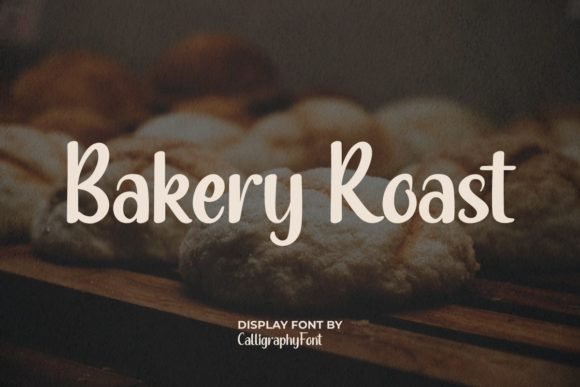
The Perfect Recipe for Designers
Imagine walking into a charming café on a sunny morning, surrounded by the sweet aroma of freshly baked bread and the warmth of vintage decor. That’s exactly the kind of atmosphere you can evoke with the Bakery Roast Font – a beautiful, sans serif display font family that exudes a vintage charm. Whether you’re a designer, artist, or entrepreneur, this font is the perfect ingredient to add a touch of nostalgia and sophistication to your branding, logos, and marketing materials.
The Bakery Roast Font is designed to make a statement, with its unique letterforms and vintage flair. It’s the perfect choice for creatives who want to stand out from the crowd and leave a lasting impression. Whether you’re working on a music project, designing a menu for a trendy restaurant, or creating a fashion brand, this font will help you achieve your goals.
Bakery Roast Font Key Features
- Font Family: Bakery Roast Font is a unique, hand-drawn font designed for bakery and food-related businesses.
- Character Count: The font includes a wide range of characters, including uppercase and lowercase letters, numbers, and special characters.
- Size and Resolution: Designed to be used at medium to large sizes, ideal for headings, titles, and signage. Supports resolutions up to 300 DPI for high-quality printing.
- Unique Characteristics: The font features a distressed, vintage look with subtle texture and imperfections, giving it a warm and inviting feel.
Bakery Roast Font Review
I recently had the chance to work with the Bakery Roast Font, and I must say it’s a decent addition to any baker-themed project. ✨ The font’s playful, handwritten feel is reminiscent of freshly baked treats, which can be quite charming for the right audience. It’s also worth noting that the font is available in multiple weights, allowing for some flexibility in design.
Here are some of the key things that work well with Bakery Roast Font:
- Unique, handwritten feel that can add a touch of whimsy to your design
- Multiple weights available for added flexibility
- Can be used for a variety of applications, from food labels to packaging
- May not be suitable for formal or professional applications due to its casual, handwritten feel
- Can be a bit difficult to read in smaller font sizes or at a distance
- Lack of international character support, which may limit its use in multilingual projects
Overall, I’d say Bakery Roast Font is a solid choice for projects that require a playful, handwritten feel. Just be aware of its limitations and use it judiciously to get the most out of it.
The Bakery Roast Font is ideal for:
- Restaurant and cafe menus
- Food packaging and labeling
- Recipe and cooking content
To get the most out of the Bakery Roast Font, use it in conjunction with:
- Warm and earthy color schemes
- High-quality food
Alternatives to Bakery Roast Font
Lato is a modern sans-serif font that is perfect for clean and minimalistic designs. It is highly legible and versatile, making it suitable for a wide range of applications, from logos to body text. Compared to Bakery Roast Font, Lato has a more contemporary feel and is more suitable for modern designs.
Playfair Display is a luxurious serif font that is ideal for creating elegant and sophisticated designs. It features intricate details and ornate flourishes, making it perfect for high-end branding and advertising. Compared to Bakery Roast Font, Playfair Display has a more luxurious and refined feel, but may not be suitable for modern or minimalist designs.
Alex Brush is a elegant script font that is perfect for creating beautiful and creative designs. It features a unique and artistic style, making it suitable for logos, packaging, and branding. Compared to Bakery Roast Font, Alex Brush has a more artistic and whimsical feel, but may not be suitable for modern or corporate designs.